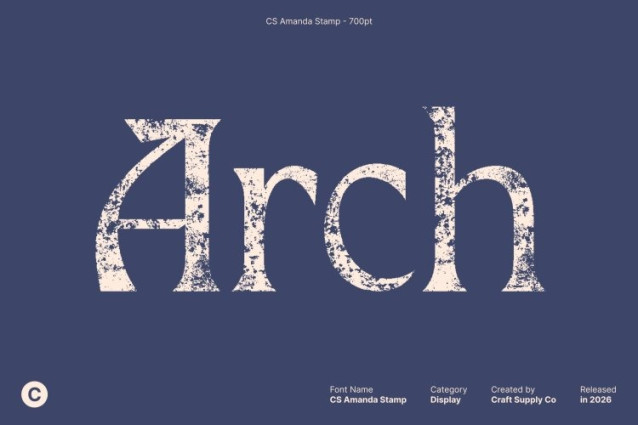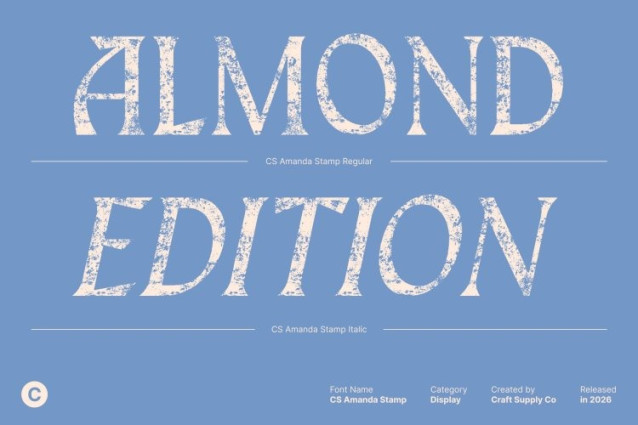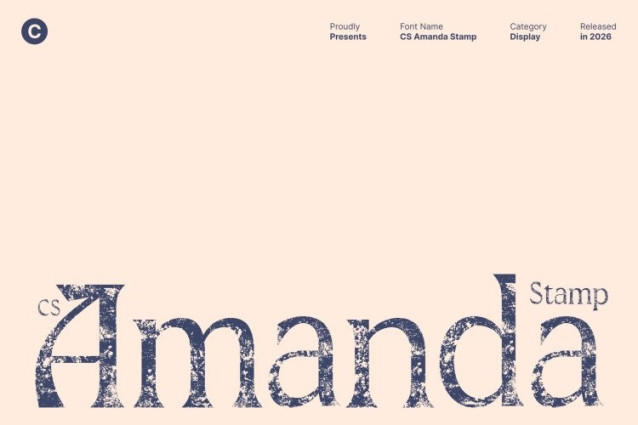
CS Amanda Stamp Font
CS Amanda Stamp Font This is a modern serif font that beautifully blends classic sophistication with contemporary refinement. Its elegant letterforms are enhanced by a subtle stamped texture, adding a vintage character that feels artistic and timeless. This fusion creates a typeface that feels graceful, expressive, and rich in visual depth.
Luxury Aesthetic with Old-World Charm
Designed for luxury-focused and professional applications, this font delivers a refined presence with an aged, handcrafted feel. The stamp effect introduces gentle imperfections and textured detail, evoking classic print traditions while maintaining a clean, modern structure. This balance makes the font feel exclusive, warm, and visually engaging.
Timeless Beauty Meets Modern Precision
This font merges timeless serif elegance with modern design clarity. Its well-balanced proportions and refined strokes ensure readability, while the vintage texture adds personality and charm. The result is a font that feels both enduring and current perfect for designs that want to honor tradition without appearing outdated.
Perfect for Elegant and Premium Designs
Ideal for high-end branding, editorial layouts, invitations, packaging, and logo design, this font elevates any project with its refined yet character-rich appearance. Its combination of modern elegance and old-style stamped texture makes it a versatile choice for designers seeking luxury, authenticity, and artistic sophistication.